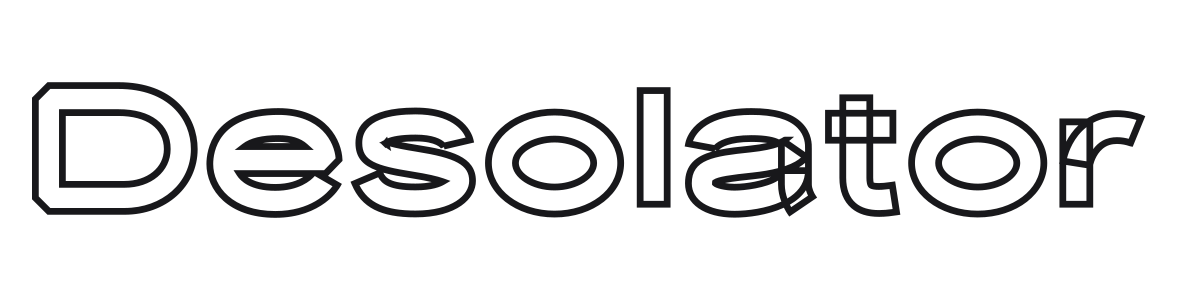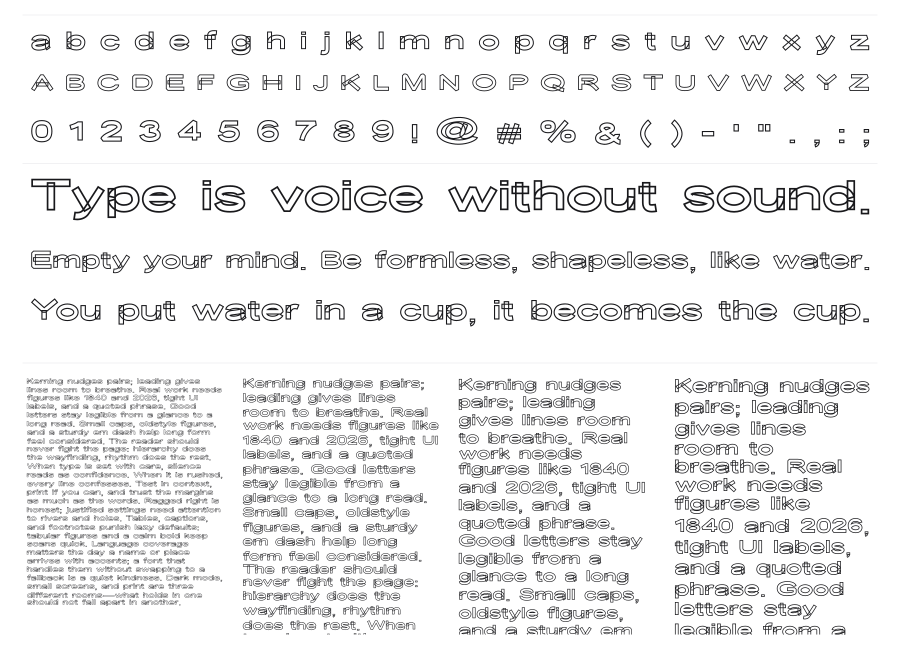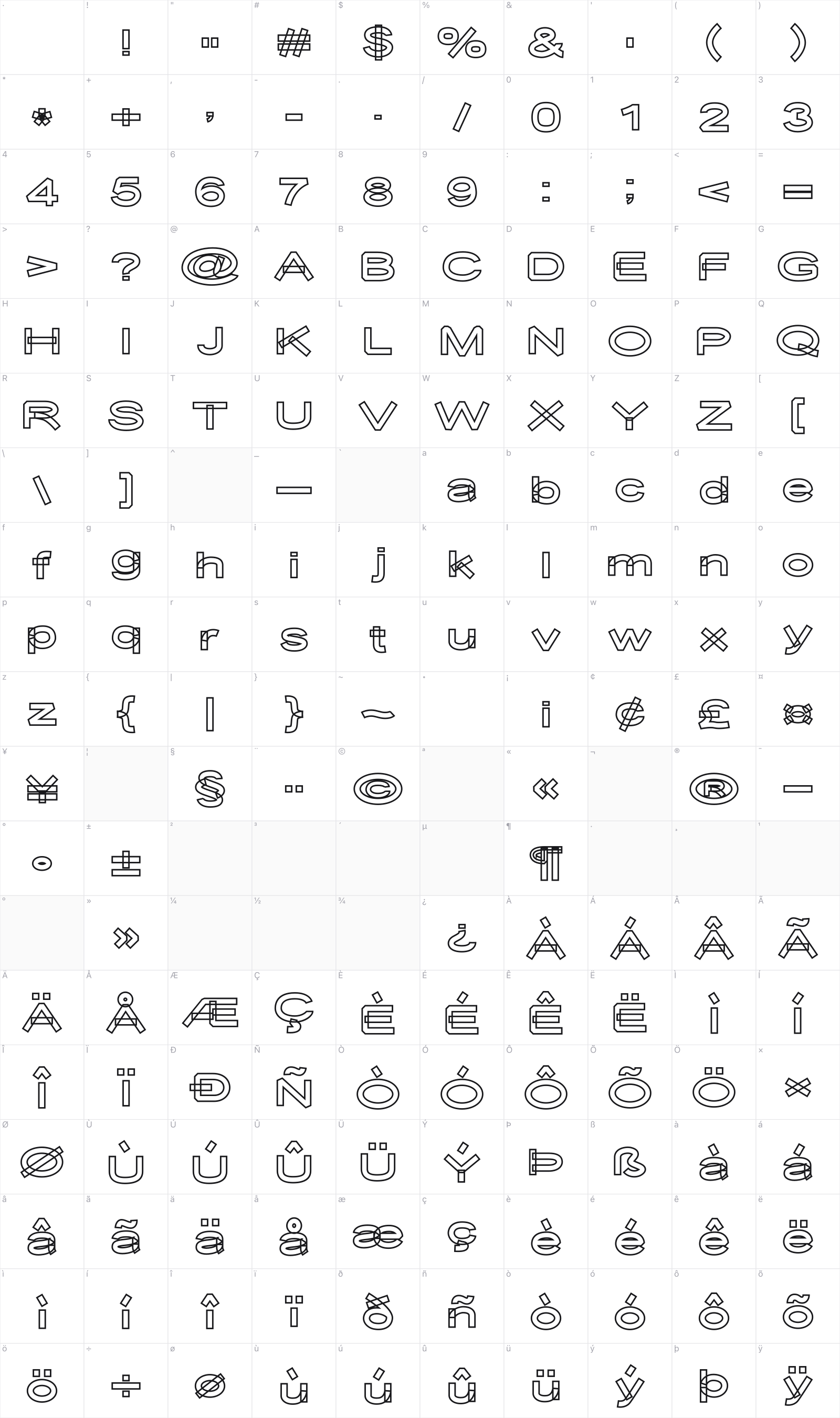
Desolator
Desolator is a bold outline rounded sans with a double-contour inline construction that gives each character a puffed, almost inflated quality. The wide proportions and smooth rounded terminals keep it friendly and approachable at large sizes. It works well anywhere you need weight and personality without taking things too seriously.